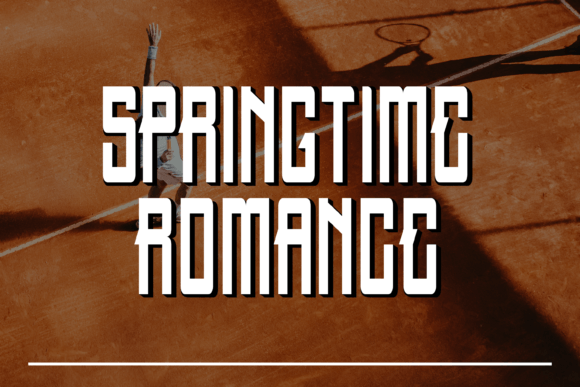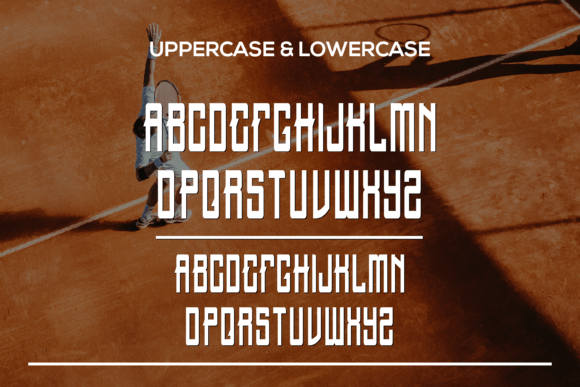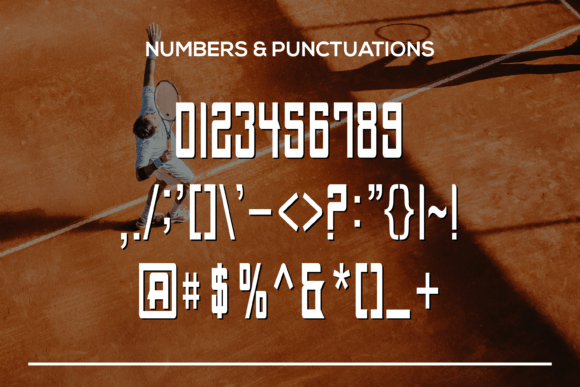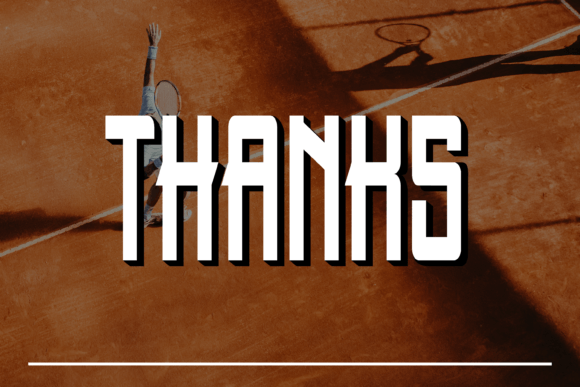
Unleashing Creativity with the Perfect Font
As designers, we’ve all been there – staring at a blank canvas, trying to bring a vision to life. The right font can make all the difference, elevating a design from mere concept to stunning reality. And that’s exactly where the Bloksamba Font comes in – a charming sans serif font that’s perfect for branding, social media, advertising, posters, flyers, and so much more.
Developed with creativity in mind, the Bloksamba Font is a valuable tool for designers looking to add a touch of style to their work. Its versatility and unique character make it an ideal choice for a wide range of projects, from digital campaigns to print materials. Whether you’re a seasoned pro or just starting out, the Bloksamba Font is sure to inspire your next big idea.
Bloksamba Font Key Features
- Character Set: The font includes a comprehensive set of characters, including uppercase and lowercase letters, numbers, punctuation marks, and special symbols, making it suitable for various design projects.
- Unique Characteristics: Bloksamba Font features a distinctive block-like design with clean lines and geometric shapes, giving it a modern and edgy feel.
Bloksamba Font Review
Overall, I was impressed with the unique style and character of Bloksamba Font. ✨ It’s a great choice for anyone looking to add a touch of whimsy and playfulness to their design. The font’s geometric shapes and bold lines make it perfect for headings and titles.
- ✨ Uniqueness: Bloksamba Font stands out from the crowd with its distinctive design.
- ✨ Versatility: It can be used in a variety of settings, from digital displays to print materials.
- ✨ Legibility: The font is clear and easy to read, even at smaller sizes.
- ⚠️ Limited language support: Bloksamba Font may not be suitable for languages that require complex typography.
- ⚠️ Limited font sizes: While the font is legible at smaller sizes, it may become distorted at larger sizes.
- ⚠️ Limited customization options: The font’s unique style may not lend itself well to extensive customization.
Overall, I think Bloksamba Font is a great choice for designers who want to add a touch of personality to their work. With its unique style and versatility, it’s a great addition to any design toolkit.
For optimal results, use Bloksamba Font in headings and titles to create visual hierarchy.
For best results, use Bloksamba Font in combination with bold lines and shapes to create a visually striking design.
For maximum impact, use Bloksamba Font in headings, subheadings, and body text to create a cohesive and engaging design.
Bloksamba Font is ideal for:
- Graphic design projects
- Brand identity and logos
- Editorial and publishing projects
Remember to use Bloksamba Font consistently throughout your design to create a strong brand image and visual identity.